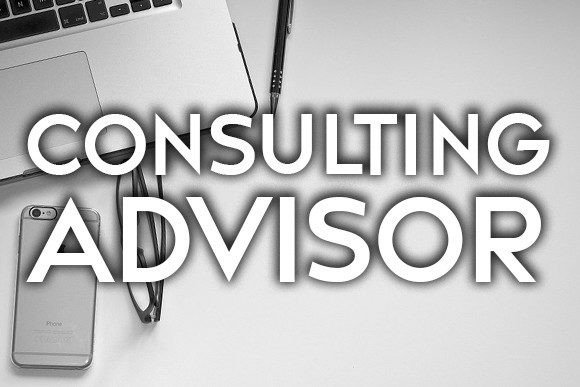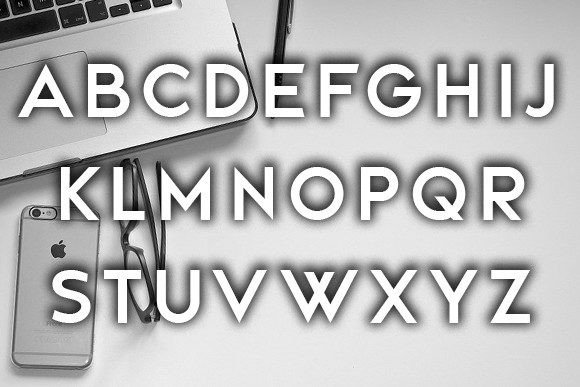
Unlock the Power of Modern Design with Agency Font
You know that moment when a font choice just clicks? You’re brainstorming ideas for a new project, and suddenly, a font pops into your mind. For designers, it’s like finding the missing piece of the puzzle. And for us, that moment came when we discovered the Agency Font.
This stylish sans-serif typeface is a game-changer for any design project. Whether you’re creating posters, flyers, or t-shirts, Agency Font is the perfect companion. Its clean lines and modern aesthetic make it versatile and eye-catching. What’s more, Agency Font is designed to elevate your designs and give them a professional touch. As a designer, you’ll appreciate the flexibility and style it brings to your work.
With Agency Font, you’ll be able to take your designs to the next level. Its value lies in its ability to make your projects stand out in a crowded market. So why settle for ordinary when you can have extraordinary? Discover the power of Agency Font and unlock your full design potential.
Key Features of Agency Font
- Font Family: Agency Font is a sans-serif font family designed for corporate and professional use. It includes 6 font styles: Light, Regular, Medium, SemiBold, Bold, and Black.
- Font Size: Agency Font is designed to be scalable, making it suitable for use in a wide range of font sizes, from 8pt to 72pt.
- Resolution: Optimized for high-resolution displays, Agency Font is suitable for use in print and digital media, including web design, signage, and advertising.
- Unique Characteristics: Agency Font features a clean and modern design, with a focus on legibility and readability. Its geometric shapes and optimized letterforms make it highly suitable for use in corporate and professional branding.
- Character Set: Agency Font includes a comprehensive character set, including Latin, Cyrillic, and Greek alphabets, as well as a range of punctuation and symbol characters.
Agency Font Review
As a designer, I’ve had the chance to work with Agency Font and here’s my honest take on it.
- Legibility: Agency Font is highly legible, making it perfect for large-scale projects like presentations, signage, and even movie titles.
- Flexibility: It’s available in a wide range of weights, from light to bold, allowing for versatility in typography.
- Clean Design: The font’s clean design makes it easy to pair with other fonts and maintain visual balance in compositions.
- Lack of Expressiveness: Compared to other fonts, Agency Font can feel a bit sterile and lacks expressiveness in certain contexts.
- Not Ideal for Body Text: Due to its large x-height, Agency Font may not be the best choice for body text, where readability is crucial.
- Not as Distinctive: Agency Font blends in with other sans-serif fonts, making it less memorable and less distinctive in compositions.
Overall, Agency Font is a solid choice for projects that require a clean, professional look. However, it may not be the best fit for every design scenario, particularly those that demand a more unique or expressive typography.
Getting the Most Out of Agency Font
Agency Font is a versatile font that works well in both digital and print media. To get the most out of it, use it in combination with bold, sans-serif fonts to create a modern and professional look. Experiment with different font sizes and styles to create visual hierarchy and emphasis.
Agency Font is commonly used in:
- Business and corporate presentations
- Marketing materials, such as brochures and flyers
- Website headers and footers
- Reports and proposals
Alternatives to Agency Font
Lato is a clean and modern sans-serif font suitable for a wide range of applications, including digital products, websites, and print materials. It is highly legible and works well for both body text and headings.
Compared to Agency Font, Lato has a more minimalist and elegant feel, making it a great choice for projects that require a professional and sleek look. While Agency Font is more condensed, Lato is more expansive, allowing for better readability.
What is the character set for Agency Font?
Agency Font supports a wide range of languages, including Latin, Cyrillic, and Greek. It also includes a comprehensive set of punctuation and diacritical marks. However, if you need to support languages that use non-Latin scripts, you may need to use a different font or a font with extended language support.